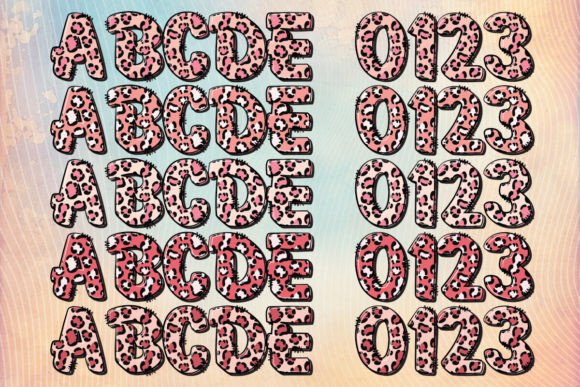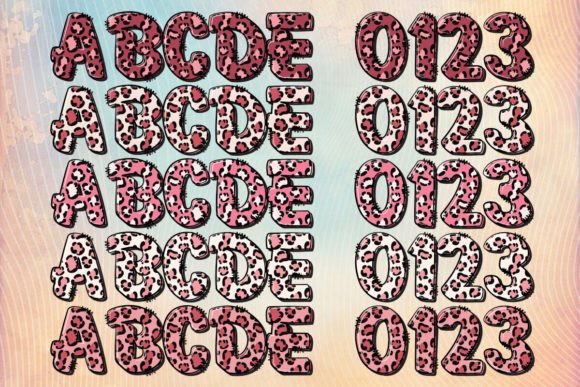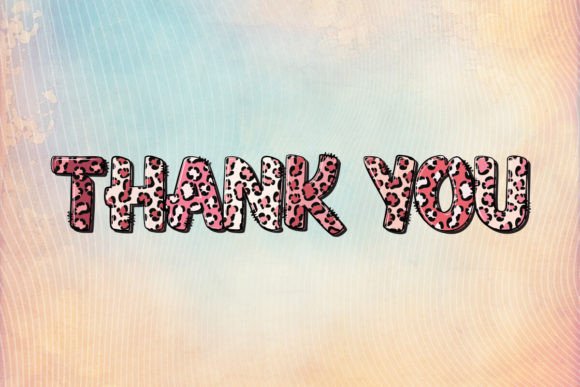
Pink Leopard Font
Introducing the ‘Breast Cancer Pink Leopard’ font, an exceptional blend of cause and creativity. Featuring a vibrant pink leopard pattern, this font represents more than just aesthetics. Each curve and line resonates with Breast Cancer Awareness, making it a tribute to strength, survival, and hope. It infuses a unique personality in your projects while making a bold statement of support. Let your words ooze elegance and empathy with our ‘Breast Cancer Pink Leopard’ font. Remember, every letter counts in shaping the narrative of awareness!